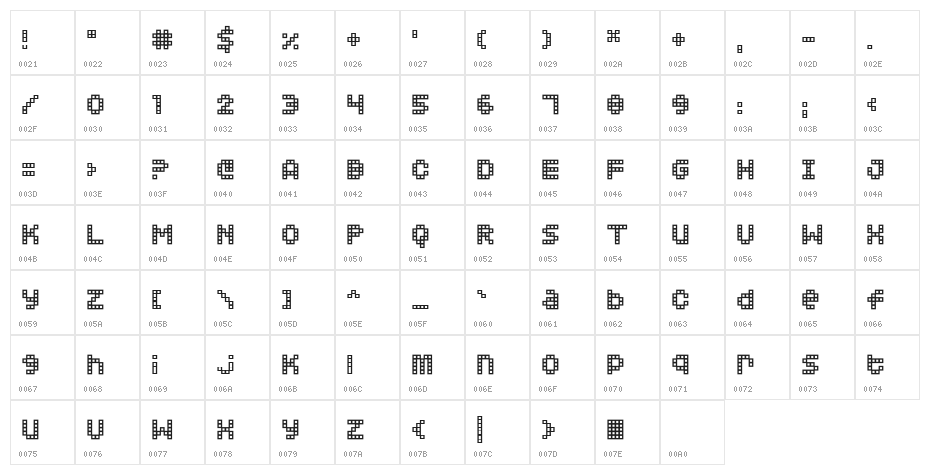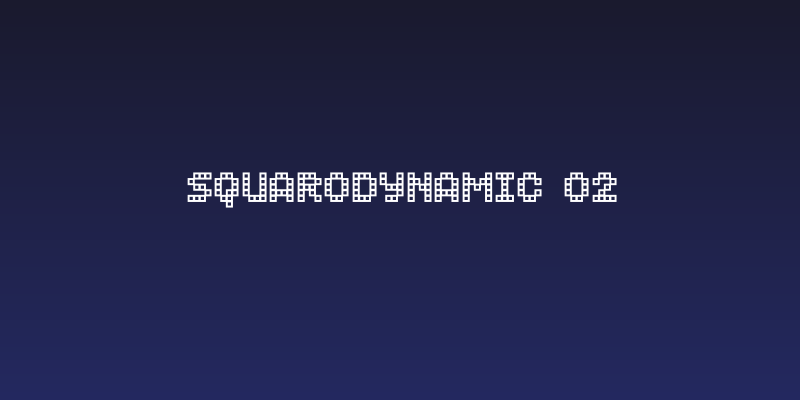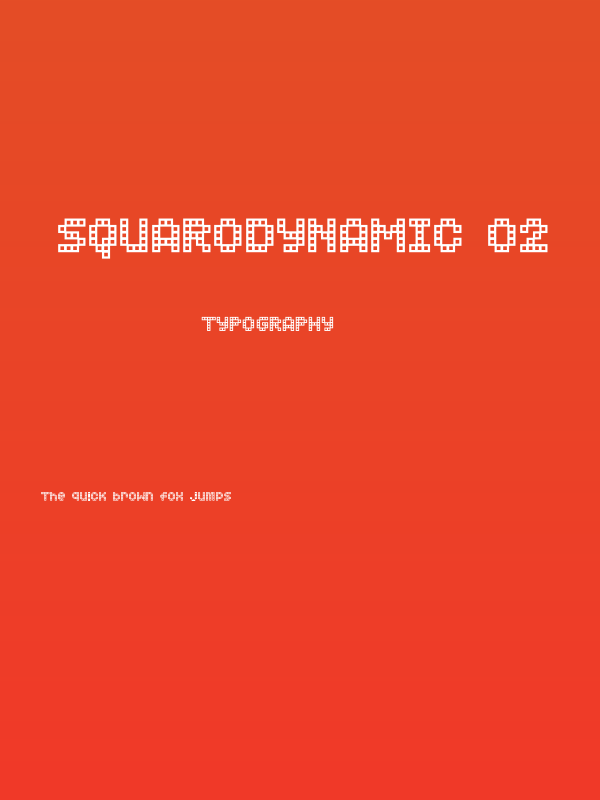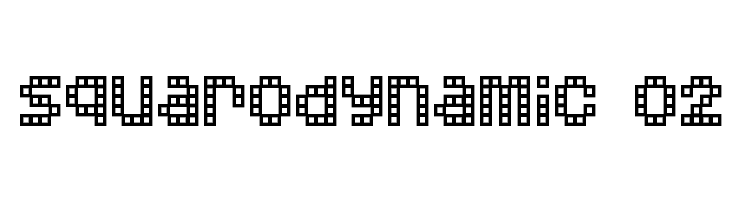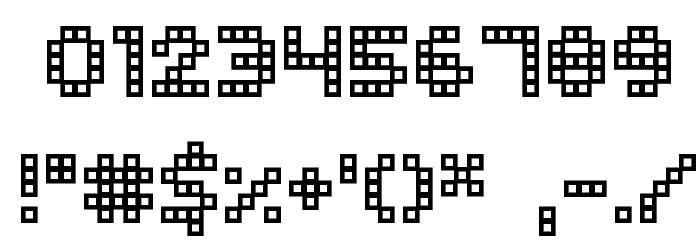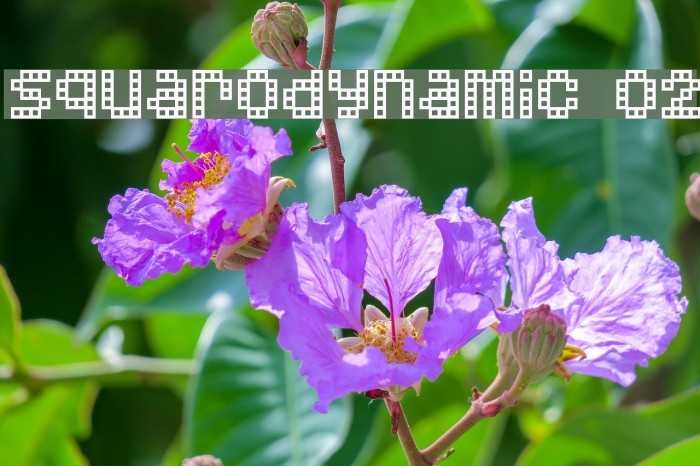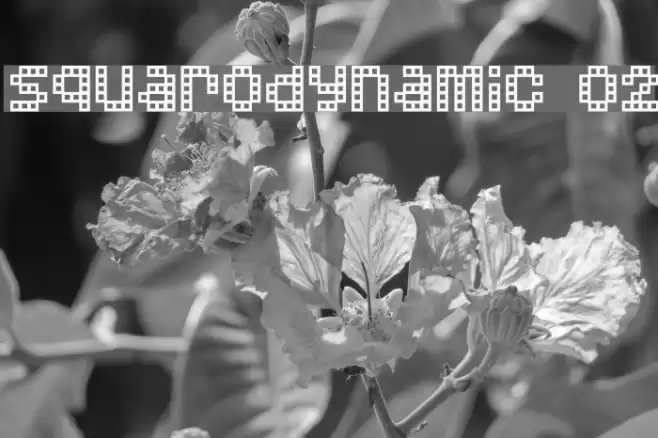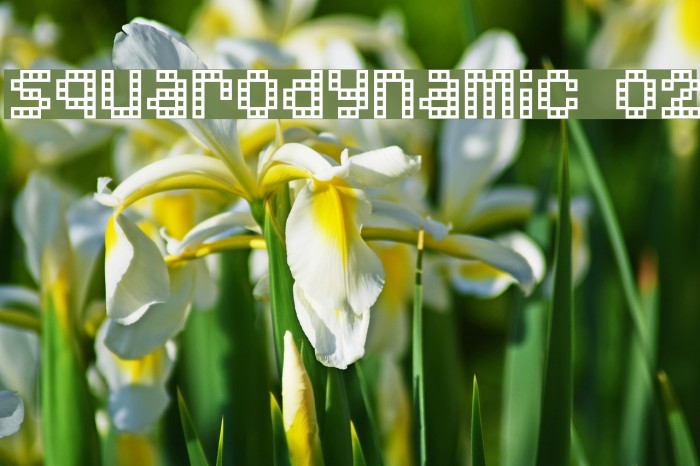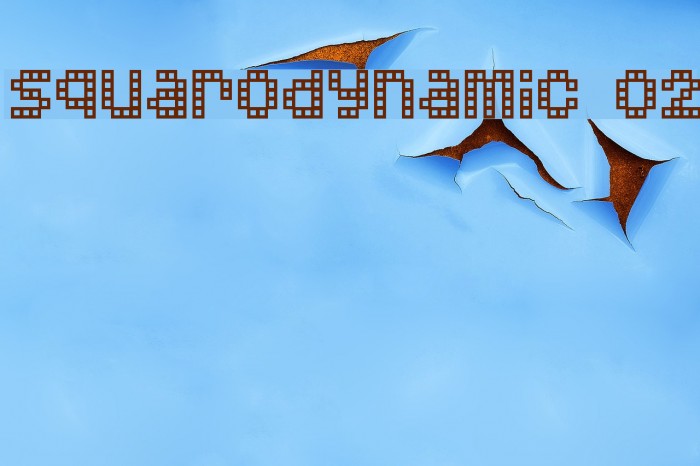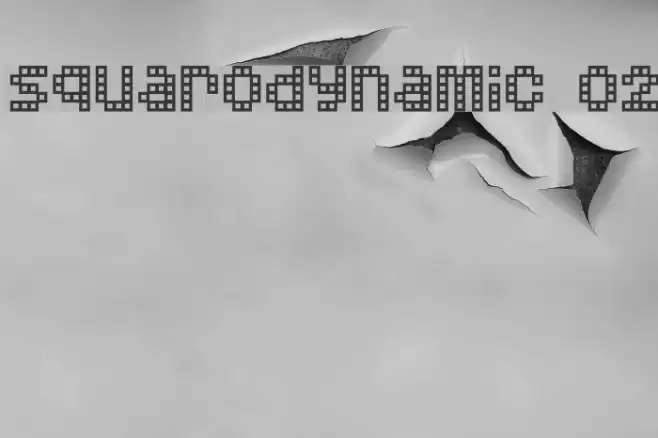
Squarodynamic 02 Font
Squarodynamic 02 Description
This font features a unique, geometric design with each character composed of small square blocks, creating a pixelated effect. The characters are uniformly structured, giving a consistent and cohesive appearance across both uppercase and lowercase letters, as well as numbers and special characters. The style is reminiscent of digital or retro video game aesthetics, making it stand out with its bold and distinctive look. The grid-like pattern within each character adds a layer of complexity and visual interest, making it suitable for projects that require a modern yet playful touch.
| Proposed Projects | Ideal for video game graphics, tech-themed posters, digital art projects, and modern branding. |